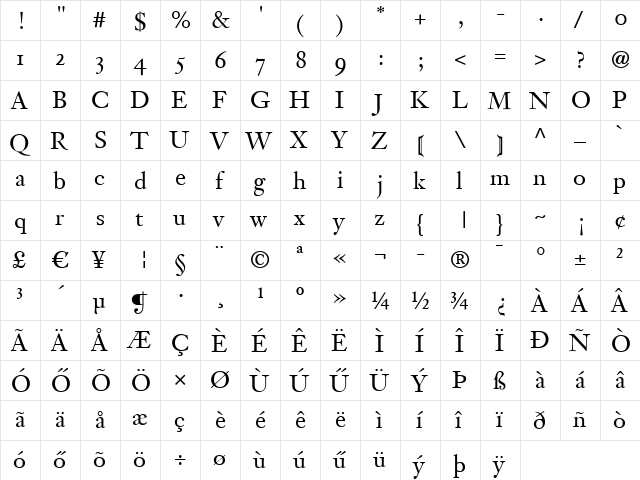
Tyrnavia Medium
Design Context for Tyrnavia Typeface
Tyrnavia offers clean, dependable letterforms without strong stylistic allegiance, making it a practical choice for designers who need flexibility.